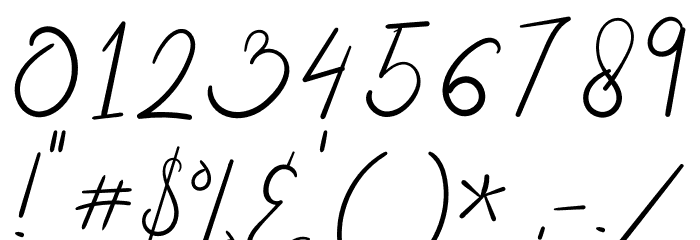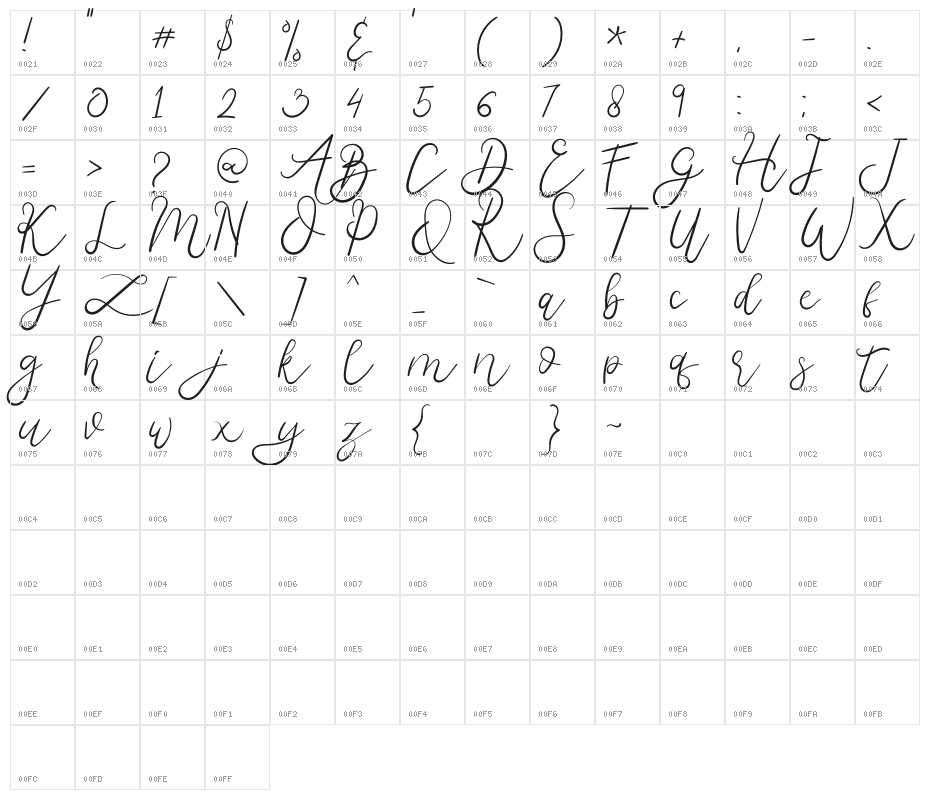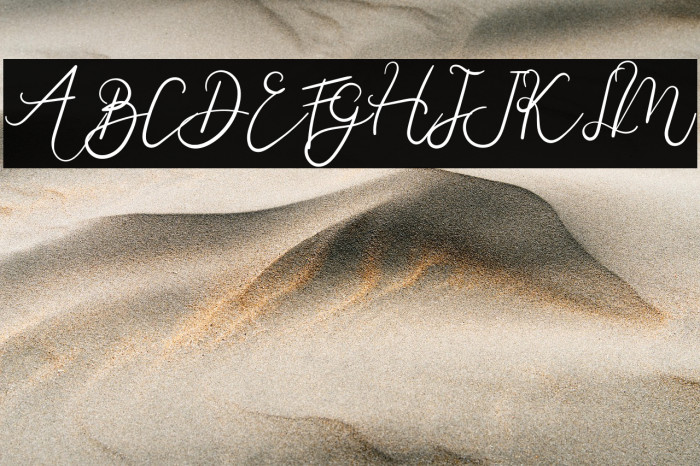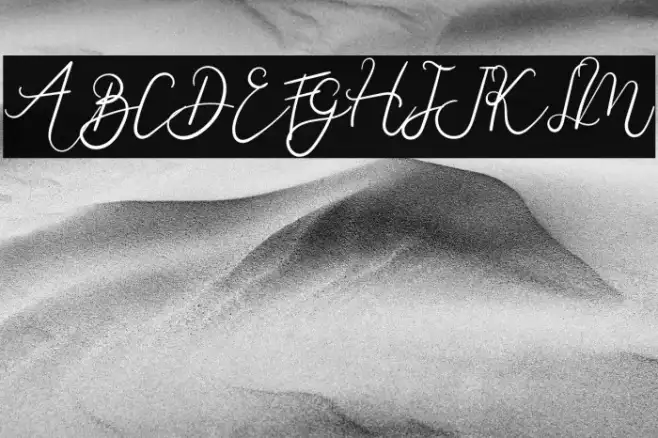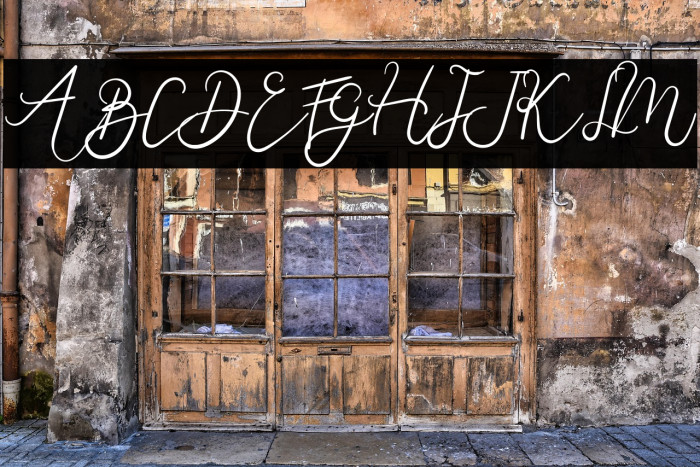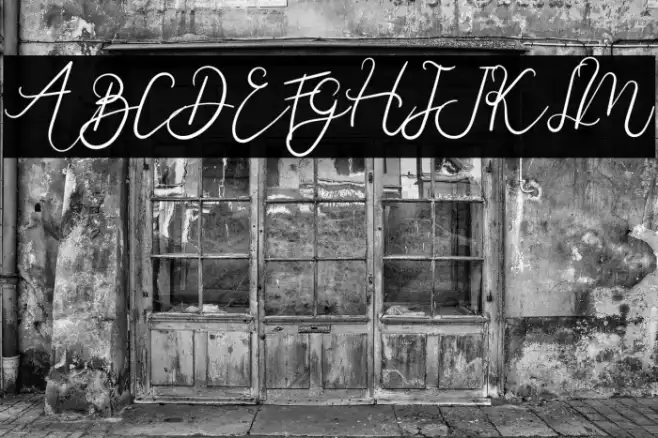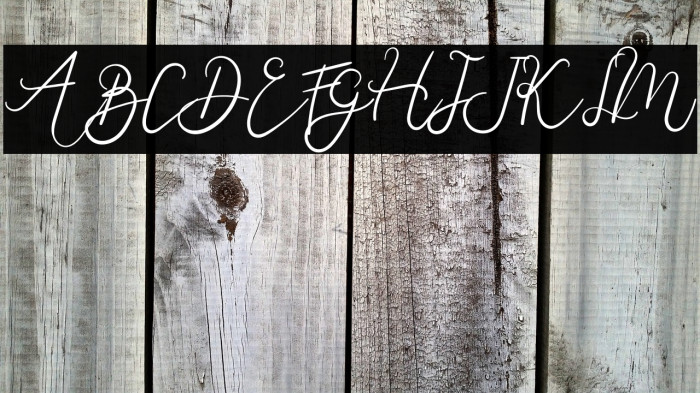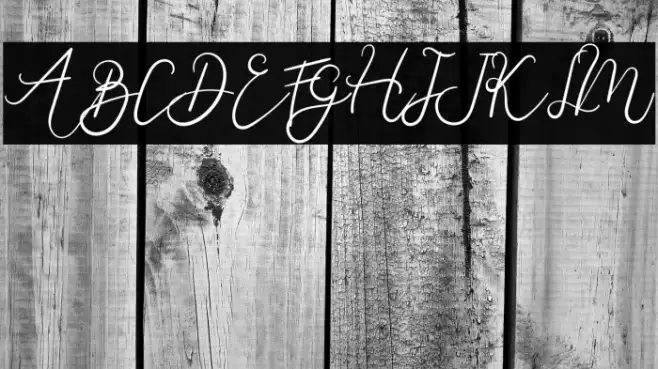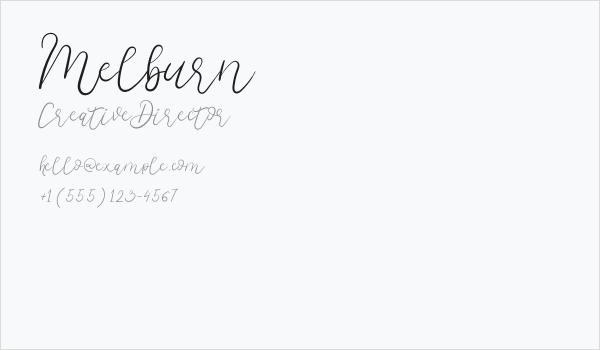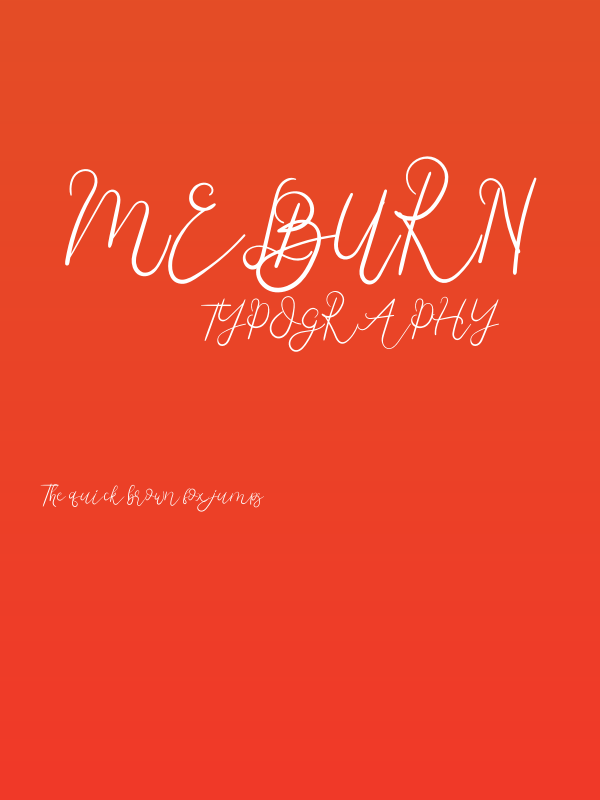
Melburn Font
Melburn Description
This font exhibits a lively and flowing script style, characterized by its elegant, cursive letterforms. The uppercase letters are particularly ornate, with sweeping curves and loops that give a sense of movement and grace. The lowercase letters maintain a consistent style, with smooth connections between characters that enhance readability while preserving the decorative nature. The numerals are distinct yet harmonize well with the alphabet, featuring similar curves and strokes. Special characters are thoughtfully designed to match the overall aesthetic, making this font versatile for various applications. The consistent stroke width ensures a balanced appearance, while the slight slant adds to its dynamic feel.
| Proposed Projects | Ideal for wedding invitations, greeting cards, branding, and elegant packaging designs. |